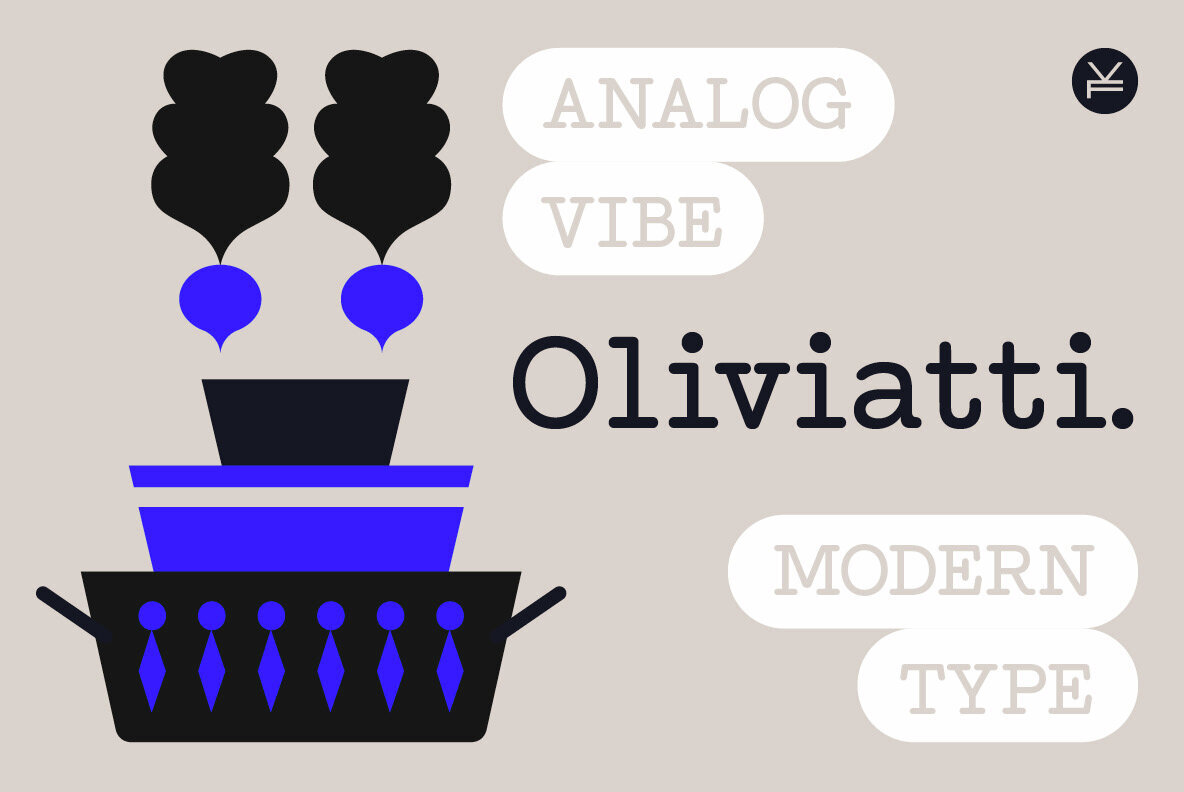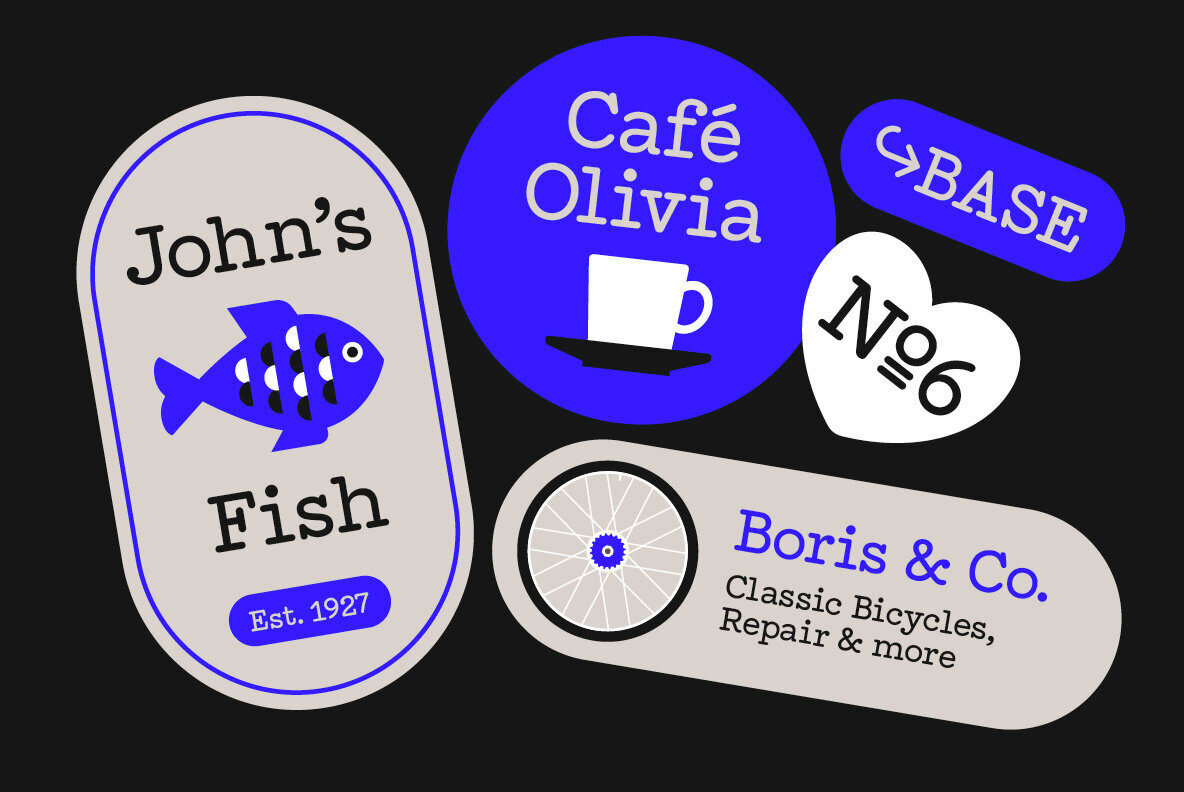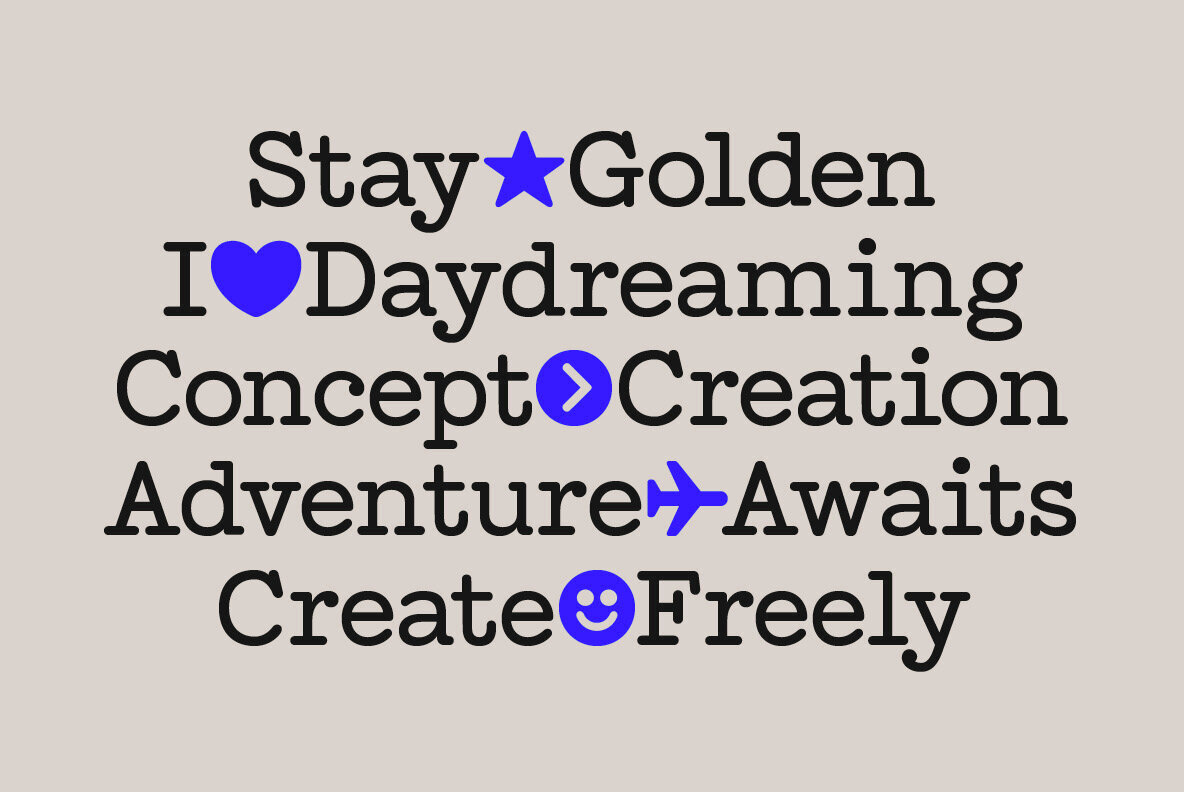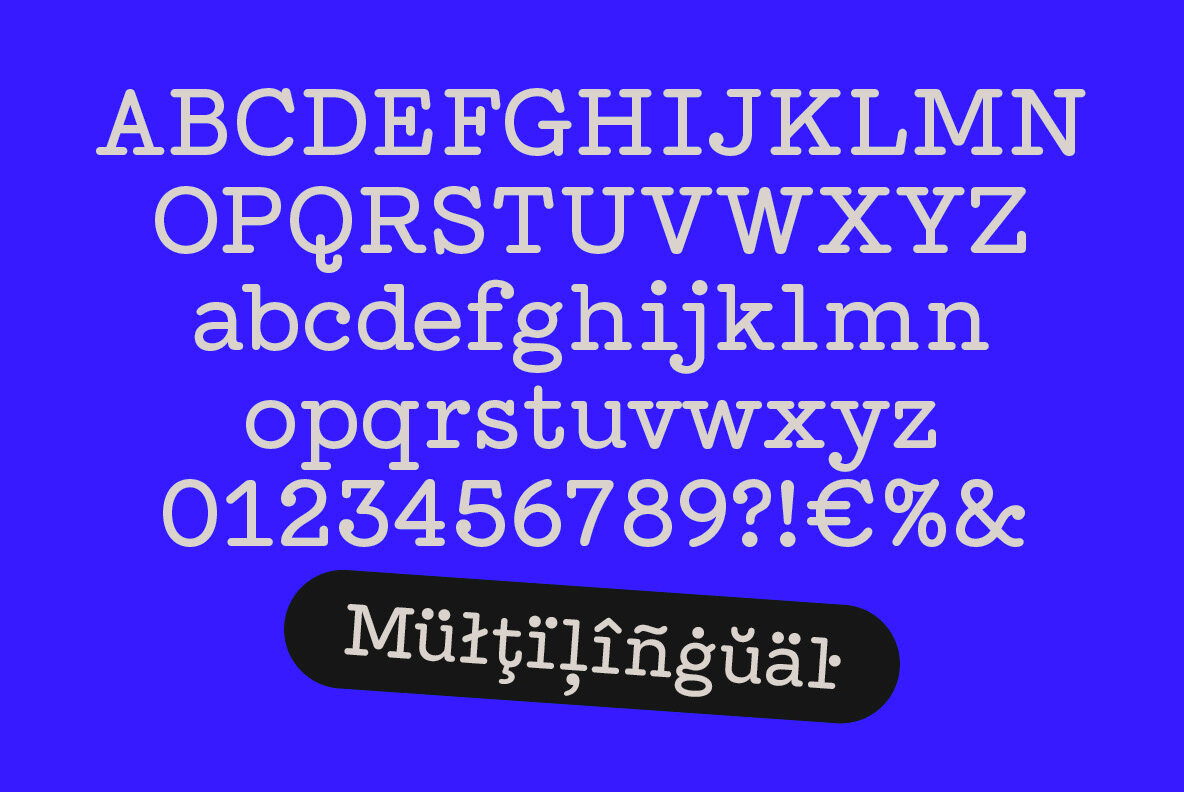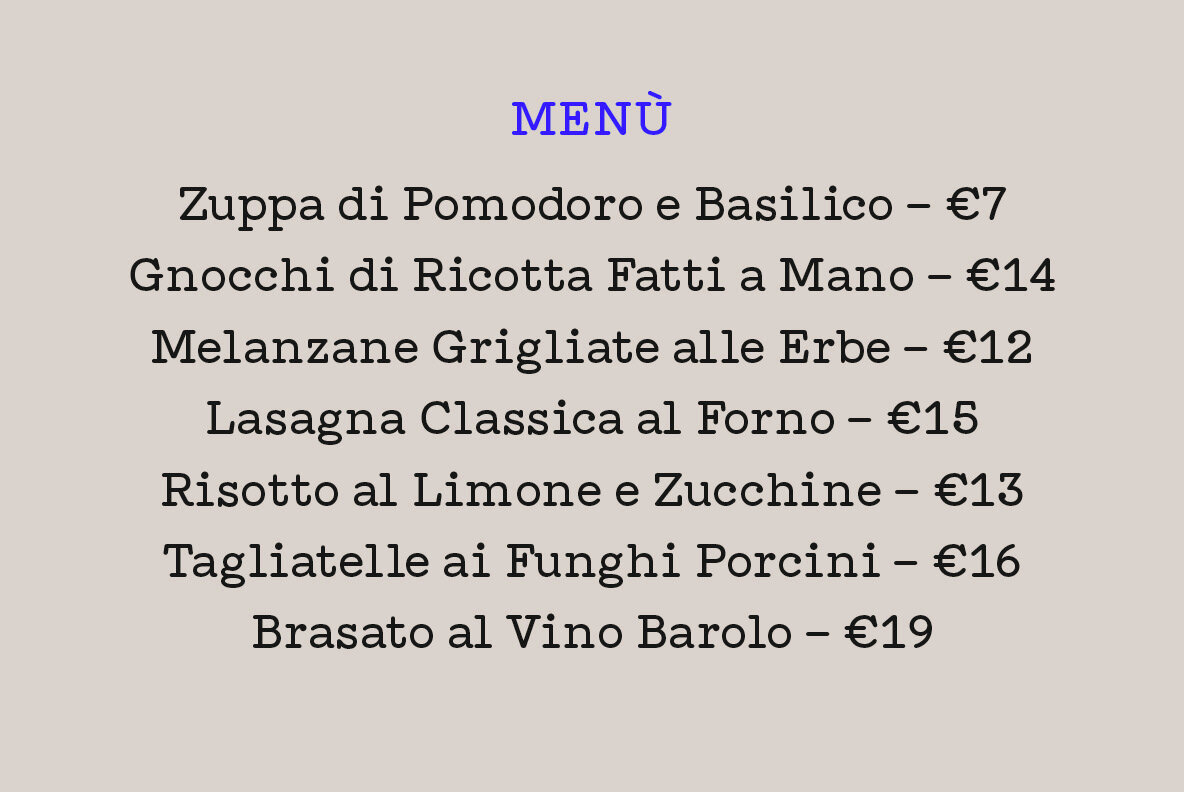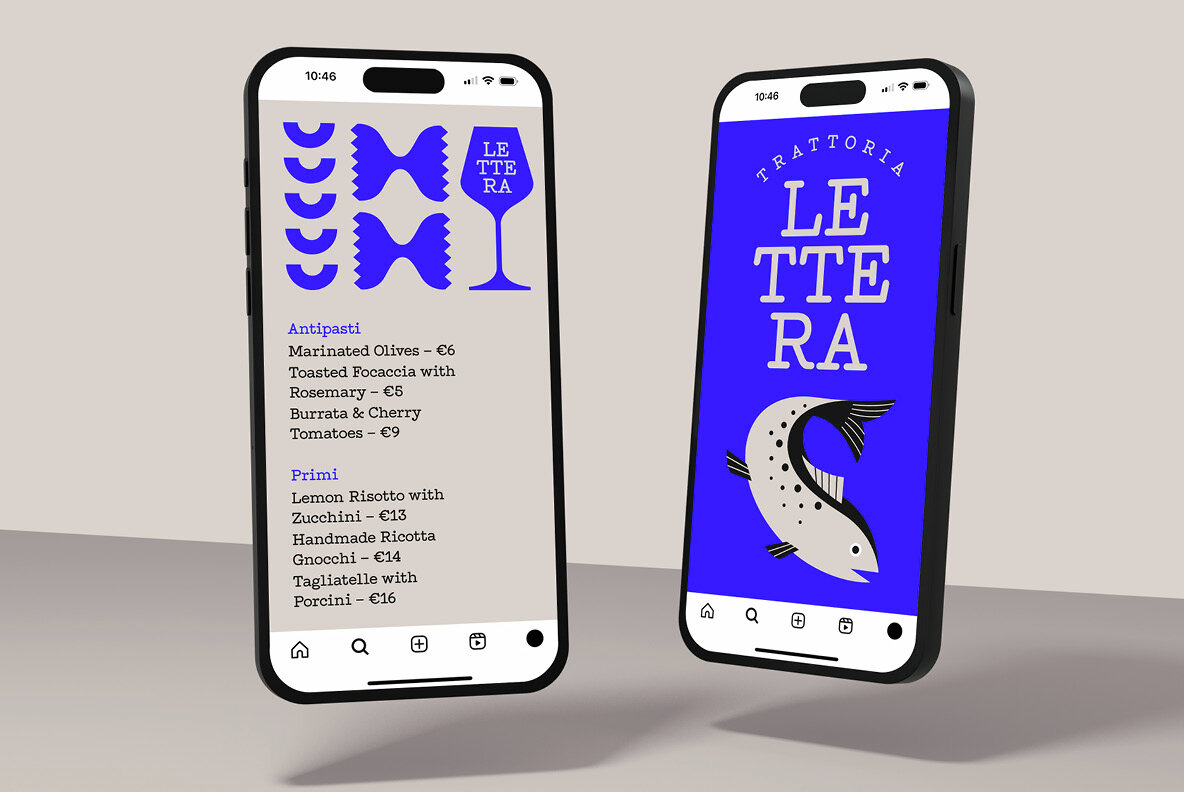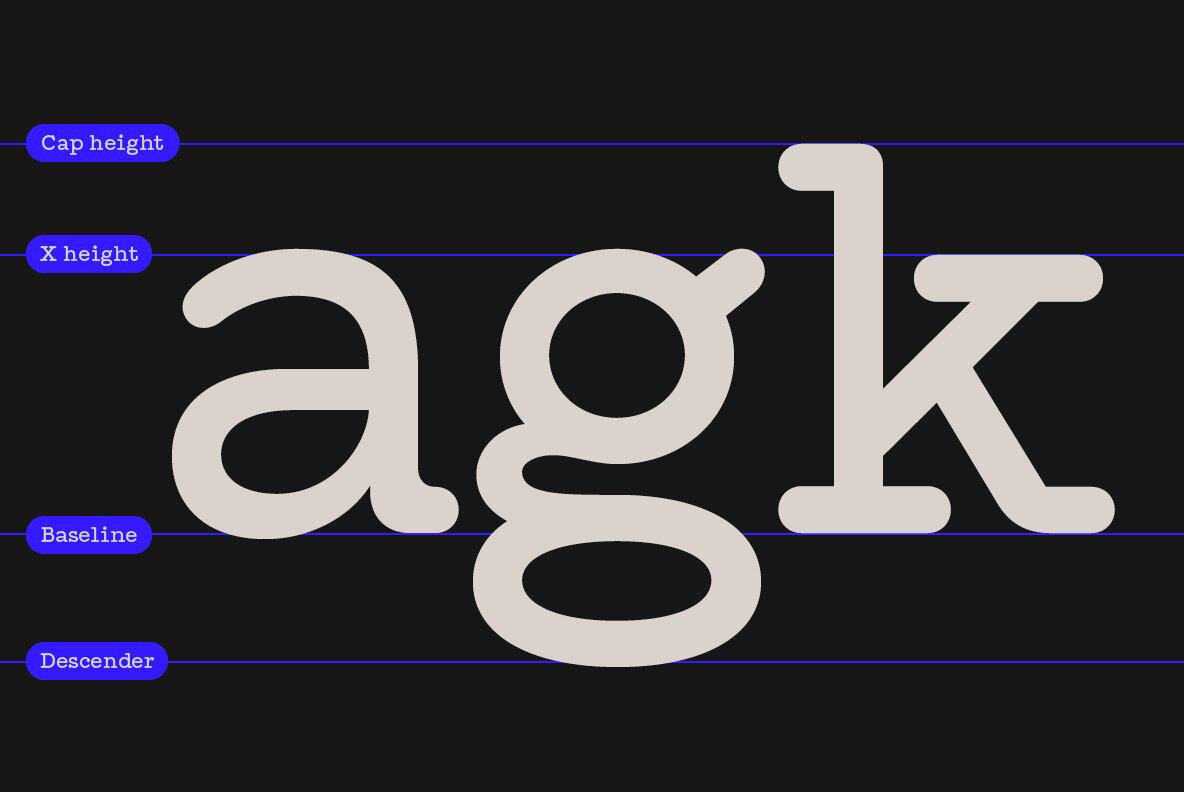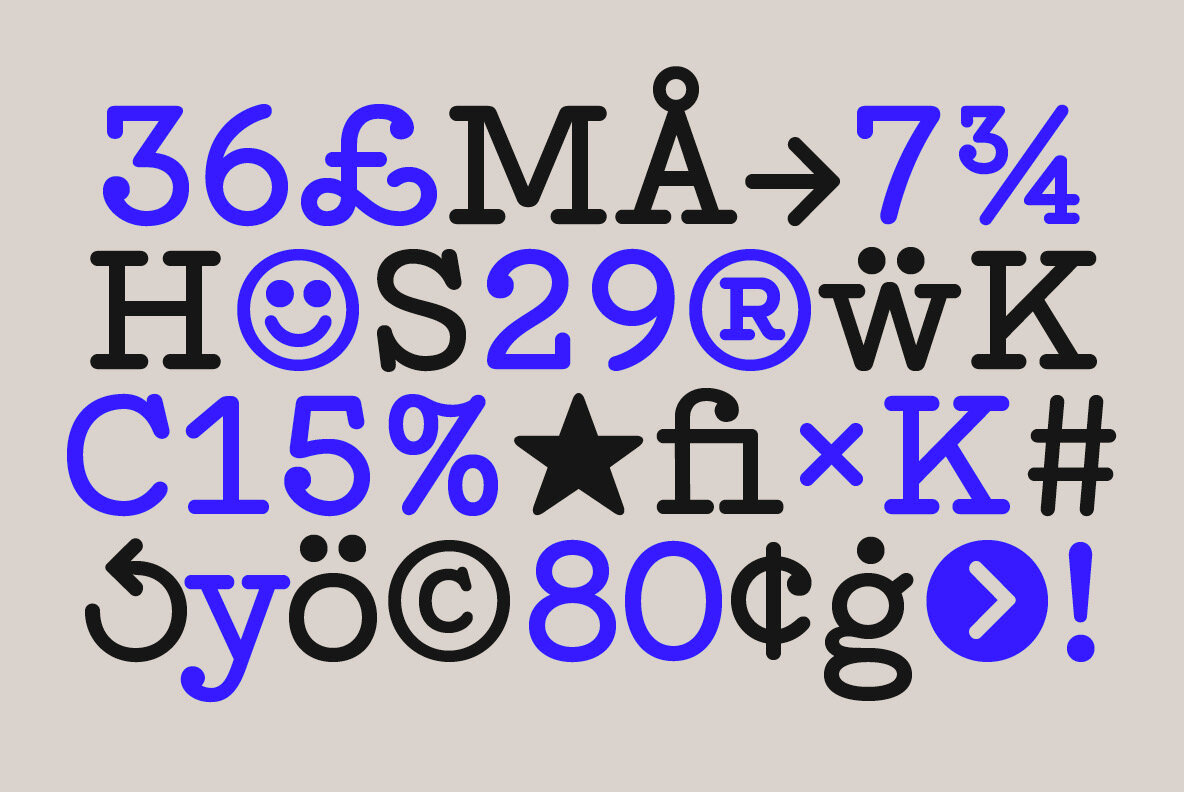
Oliviatti Font
Oliviatti Regular
Inspired by the clack and charm of vintage typewriters, Oliviatti brings a warm, analog spirit to your designs. While it nods to the iconic aesthetics of machines like the Lettera and pays homage to classics such as American Typewriter, Oliviatti stands confidently on its own — blending old-world character with a friendly, versatile, and contemporary finish. With over 420 glyphs and wide language support, Oliviatti is ready to travel. From bold headlines to quiet notes, logos, menus to messages, it brings personality and readability to every project.